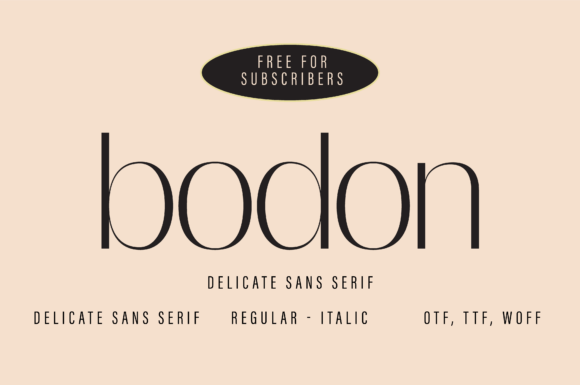
Bodon: A High-Contrast Sans Serif for Elegant Branding
I was staring at a blank brand board for a boutique skincare line, feeling the familiar pressure of finding a typeface that whispered luxury without screaming for attention. The client wanted something timeless yet modern, and my usual go-to Sans Serif options felt too generic or corporate. That’s when I loaded up Bodon. As soon as I typed the project name into Illustrator, the screen seemed to clear. Bodon is a delicate, high-contrast sans serif font designed for timeless elegance and exceptional readability, and seeing those sleek minimal curves render on my monitor confirmed I had found the right partner for this identity. It wasn't just another entry in the crowded library of premium Fonts; it felt like a discovery.
Bodon for Luxury Logo Design and Brand Identity
The first test was always the logo mark. In branding, a Sans Serif often struggles to convey warmth, but Bodon managed to strike a perfect balance between structure and fluidity. When I set the wordmark for the skincare brand, the refined thin-to-thick transitions created an immediate sense of sophistication. Unlike many geometric sans serifs that can feel cold or robotic, Bodon brings a sophisticated human touch through its varying stroke weights. I experimented with kerning, tightening the spacing slightly to make the letters feel more cohesive, and the result was a logo that looked expensive even before any color was applied. For designers looking for a display font that doubles as a strong brand anchor, Bodon offers a unique visual hierarchy that commands respect without being aggressive.
What stood out most during this phase was how the font handled negative space. The delicate nature of the thinner strokes meant that the white space around the letters became part of the design itself. This is crucial for logo design where scalability matters. I quickly realized that while Bodon shines as a headline or logo font, its delicate construction means it needs careful handling in very small sizes. However, for the primary brand mark, it delivered exactly the kind of premium aesthetic the client envisioned, proving that not all Fonts need to be heavy to be impactful.
Testing Bodon on Packaging Mockups and Product Labels
Moving from the digital canvas to physical mockups, I placed Bodon on a matte-finish cream bottle label. The transition from screen to print simulation was seamless. Because Bodon is designed for exceptional readability, the text remained crisp even when scaled down to fit the neck of the bottle. The high-contrast nature of the typeface added a layer of tactile elegance to the packaging design; it looked like it belonged on a shelf in a high-end department store rather than a discount bin. I paired the main product name in Bodon with a smaller, lighter weight for the ingredient list, creating a clean, uncluttered look that emphasized purity and simplicity.
This application highlighted why Bodon is such a versatile tool for packaging design. Many decorative fonts fail when moved to three-dimensional objects because their details get lost or become muddy. With Bodon, the sleek minimal curves held their shape beautifully. It worked particularly well for short phrases and key descriptors, reinforcing the brand's promise of quality. If you are working on a handmade shop branding project or a local artisanal product line, using a typeface like Bodon can instantly elevate the perceived value of your goods. It tells the consumer that care has been taken in every detail, from the formula to the typography.
Bodon in Web Design and Social Media Graphics
Digital presence is non-negotiable for modern brands, so I tested how Bodon performed in a website header and Instagram story layout. As a web designer, I know that loading times and legibility are critical, and Bodon excels here. The font's structure ensures that even at larger display sizes on a homepage hero section, the characters remain distinct and inviting. I used it for the main navigation and the "About Us" headline, pairing it with ample whitespace to let the letterforms breathe. The result was a web design interface that felt airy, modern, and incredibly professional.
For social media graphics, Bodon proved to be a standout choice for social media graphics that need to stop the scroll. On an Instagram post featuring a flat-lay of the skincare products, the bold headlines in Bodon cut through the visual noise. The high contrast made the text pop against both light and dark backgrounds, ensuring the message was read immediately. While it might not be the best choice for long-form body copy due to its stylistic flair, as a headline font or accent typeface, it drives engagement by establishing a clear visual hierarchy. Designers looking to refresh their creative studio identity or boost their online presence will find that Bodon adds a necessary polish to digital assets.
Strategic Font Pairing and Commercial Licensing Considerations
No typeface exists in a vacuum, and one of the most satisfying parts of working with Bodon was exploring how it plays with other styles. Since Bodon is a characterful Sans Serif, I found it paired exceptionally well with a classic serif font for body text. The juxtaposition of the modern, high-contrast lines of Bodon against the traditional stability of a serif created a dynamic tension that kept the design interesting. Alternatively, for a more avant-garde look, pairing it with a minimalist handwritten font added a personal, artisanal touch suitable for crafters and hobbyists. The key is to let Bodon take the lead in headlines and logos, allowing supporting typefaces to handle the functional heavy lifting.
When to Avoid Bodon in Your Design Projects
While Bodon is a powerhouse for elegance, honesty demands acknowledging where it might not fit. Its delicate, high-contrast nature makes it less ideal for environments requiring extreme legibility at tiny sizes, such as technical manuals or dense legal documents. If your project involves large blocks of body text in a low-resolution environment, a more robust, uniform sans serif might serve you better. Similarly, for formal corporate identities that demand strict neutrality over personality, Bodon's refined curves might feel too expressive. It is a font with a distinct voice, and like any good design asset, it works best when that voice aligns with the brand's story. For projects needing a quiet, invisible utility, you might look elsewhere, but for anything requiring a touch of soul and style, Bodon remains a top-tier choice.